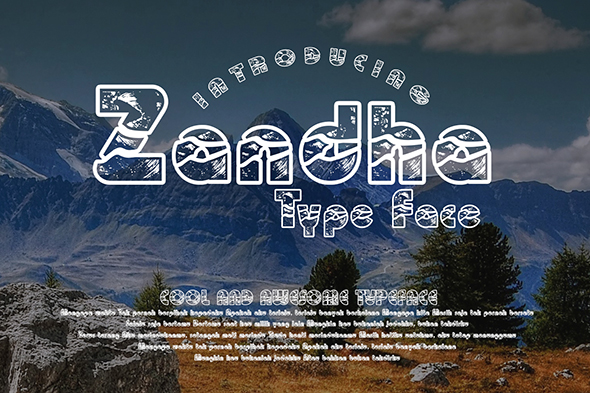
Introducing Zandha Font, the Exquisite Embellishment to Your Creative Arsenal!
In a world teeming with ordinary fonts, Zandha Font emerges as a radiant beacon of originality, a true masterpiece designed to elevate your designs to unprecedented heights. This handpicked decorative font family, meticulously crafted by the renowned Gblack Id, is a testament to the artistry and elegance that typography can achieve.
With Zandha Font, you hold the key to unlocking a realm of creative possibilities. Its intricate glyphs, reminiscent of ancient manuscripts and royal edicts, exude an aura of timeless beauty. Whether you seek to craft captivating headlines that demand attention, design book covers that transport readers to enchanting worlds, or create posters and invitations that ignite the imagination, Zandha Font is your trusted ally.
Let your creativity soar as you explore the endless applications of Zandha Font. Its versatility knows no bounds, seamlessly adapting to a myriad of projects, from personal to professional. Unleash your inner artist and watch as your designs blossom into stunning works of art.
Bring a Touch of Majesty to Your Headlines
Zandha Font possesses an innate ability to transform ordinary headlines into captivating masterpieces. Its regal presence commands attention, ensuring that your messages stand out from the mundane and resonate with your audience. Whether you're crafting headlines for websites, blogs, social media posts, or any other digital platform, Zandha Font will elevate your words, adding a touch of sophistication and gravitas that leaves a lasting impression.
Entice Readers with Alluring Book Covers
Zandha Font, with its enchanting aura, is the perfect companion for book covers that seek to captivate readers' imaginations. Its intricate details and elegant curves evoke a sense of mystery and intrigue, inviting readers to delve into the worlds within your stories. Whether your genre is fantasy, romance, historical fiction, or anything in between, Zandha Font will adorn your book covers with a regal elegance that speaks to the allure of your tales.
Create Memorable Posters and Invitations
Zandha Font, with its flair for the dramatic, is an ideal choice for creating posters and invitations that leave a lasting impression. Its bold strokes and graceful flourishes add an air of grandeur to any event, be it a grand ball, a festive celebration, or an intimate gathering. Your posters and invitations, adorned with Zandha Font, will become cherished keepsakes, reminding guests of the magical moments they experienced.
Awaken Your Inner Artist
Zandha Font is not merely a tool; it's an invitation to embark on a creative journey. Its versatility empowers you to explore new avenues of expression, to push the boundaries of your imagination and create designs that are uniquely yours. Whether you're a seasoned designer or just starting your creative journey, Zandha Font will ignite your passion and unleash your boundless creativity.